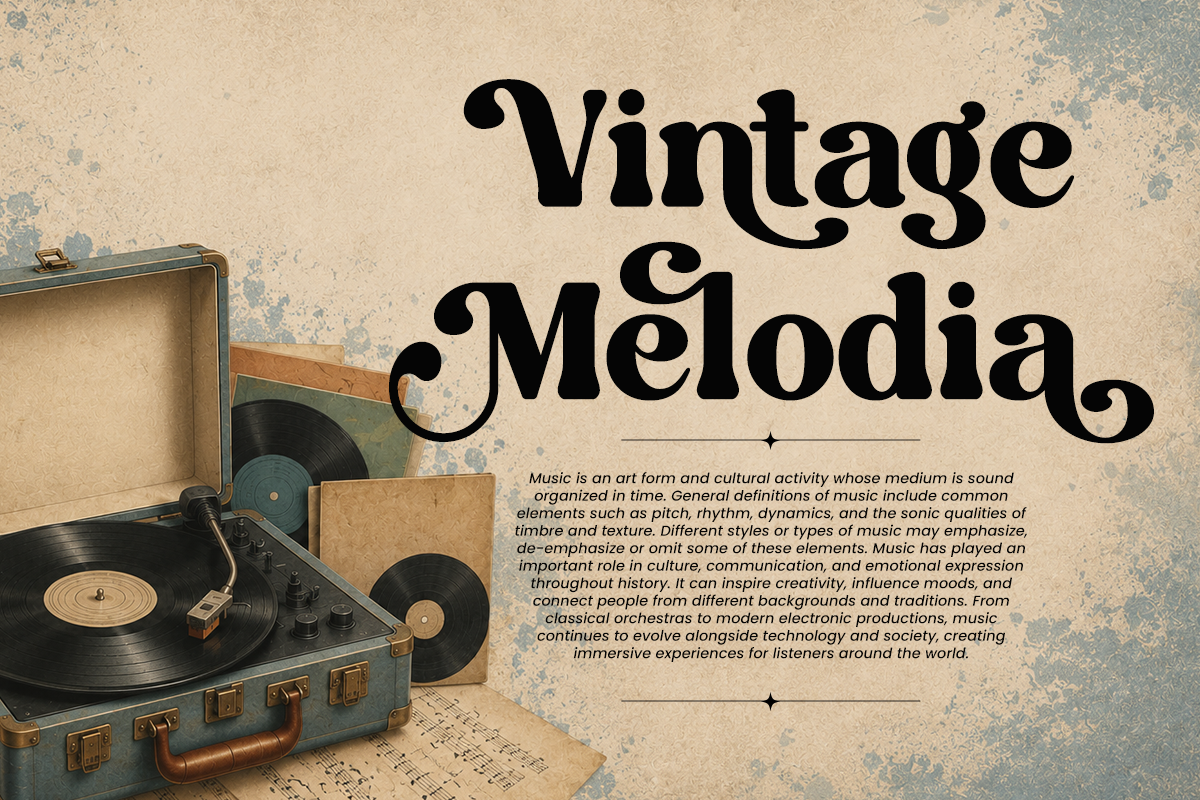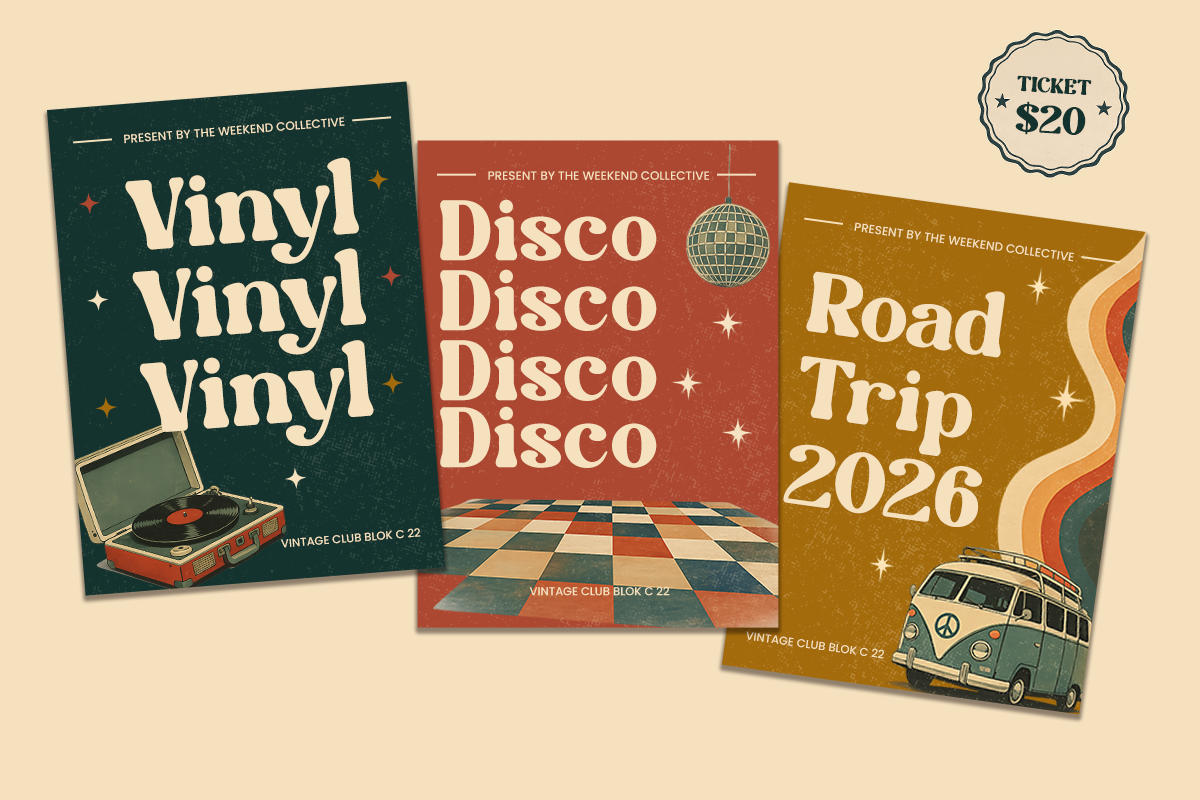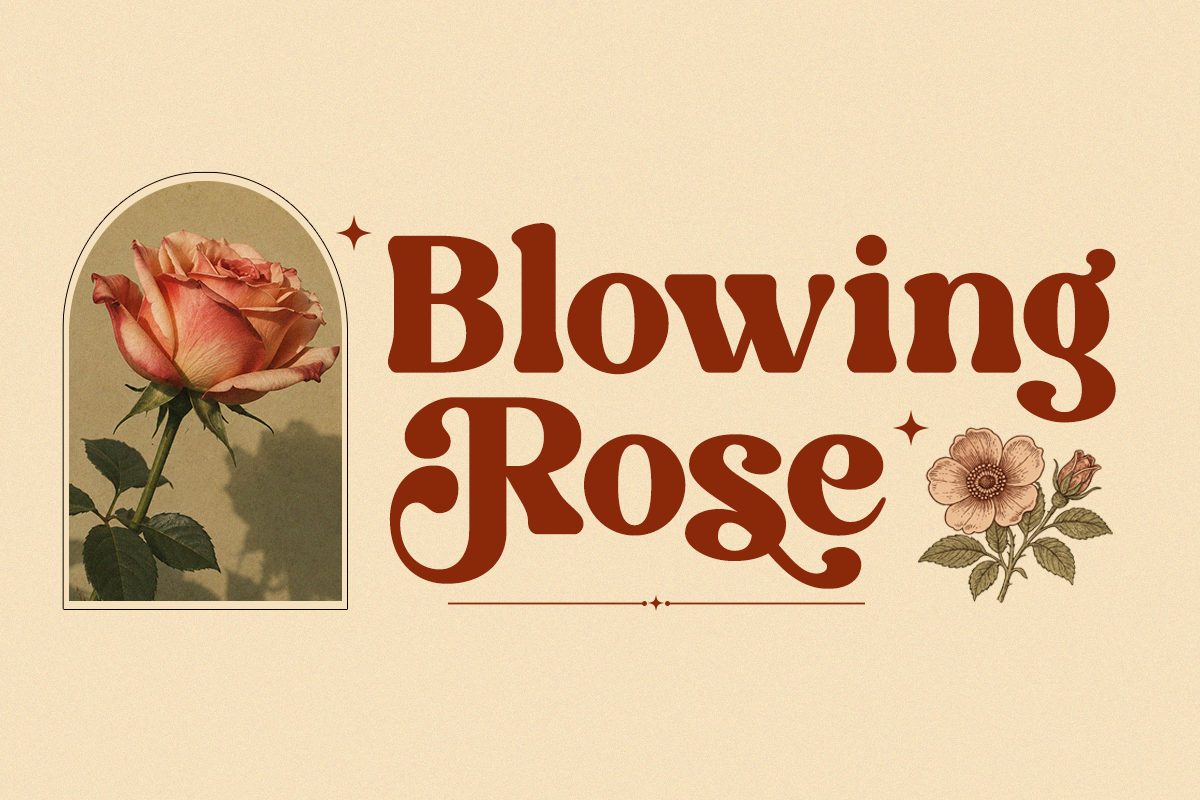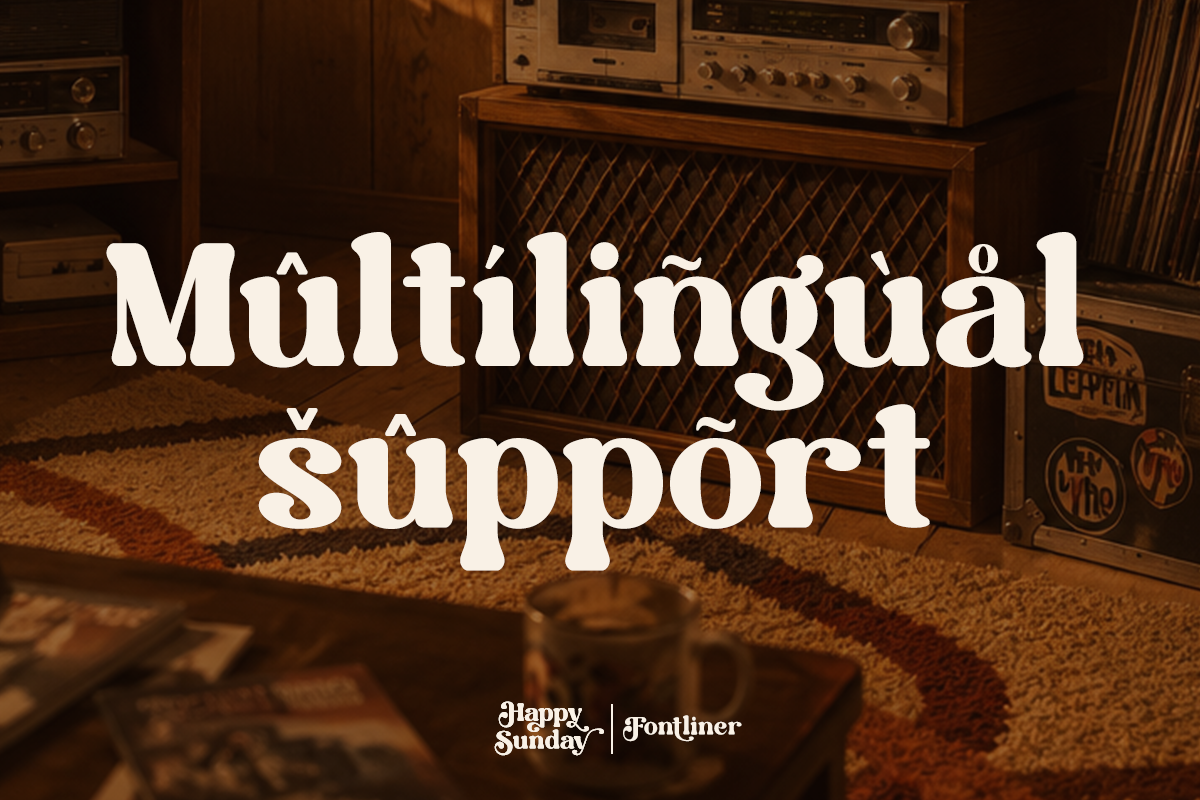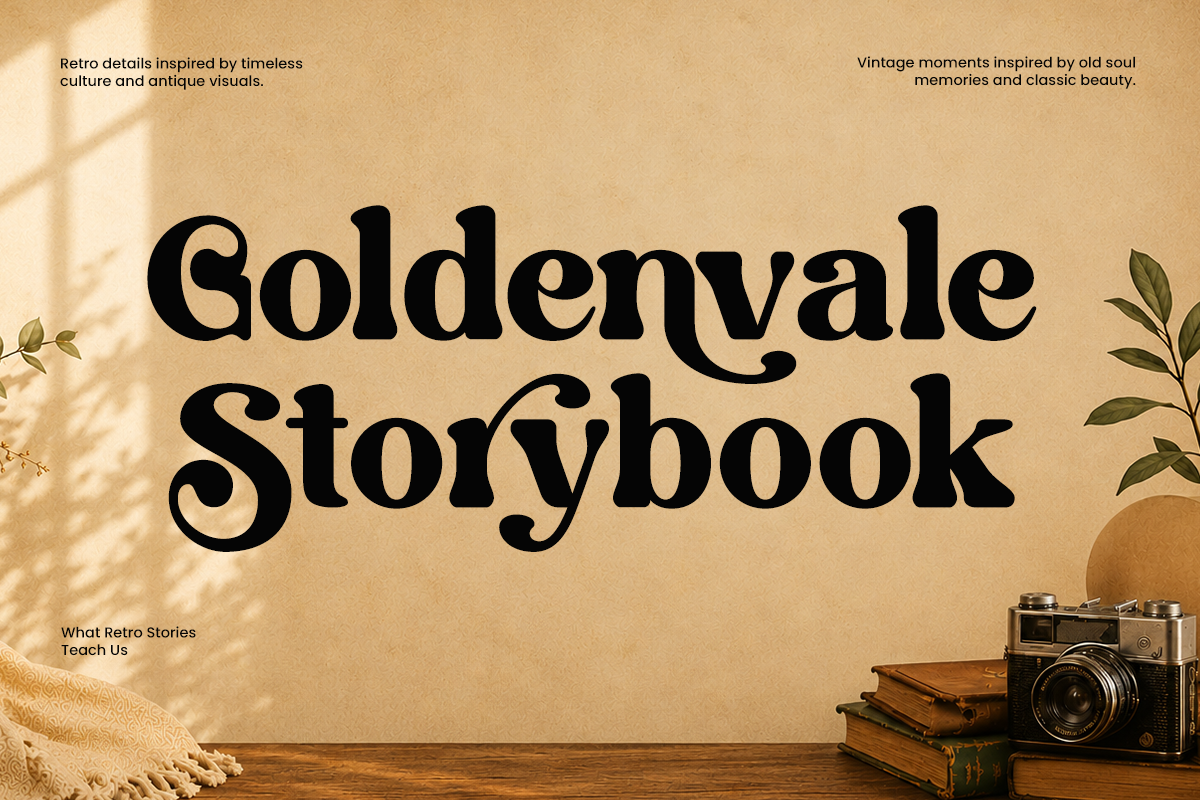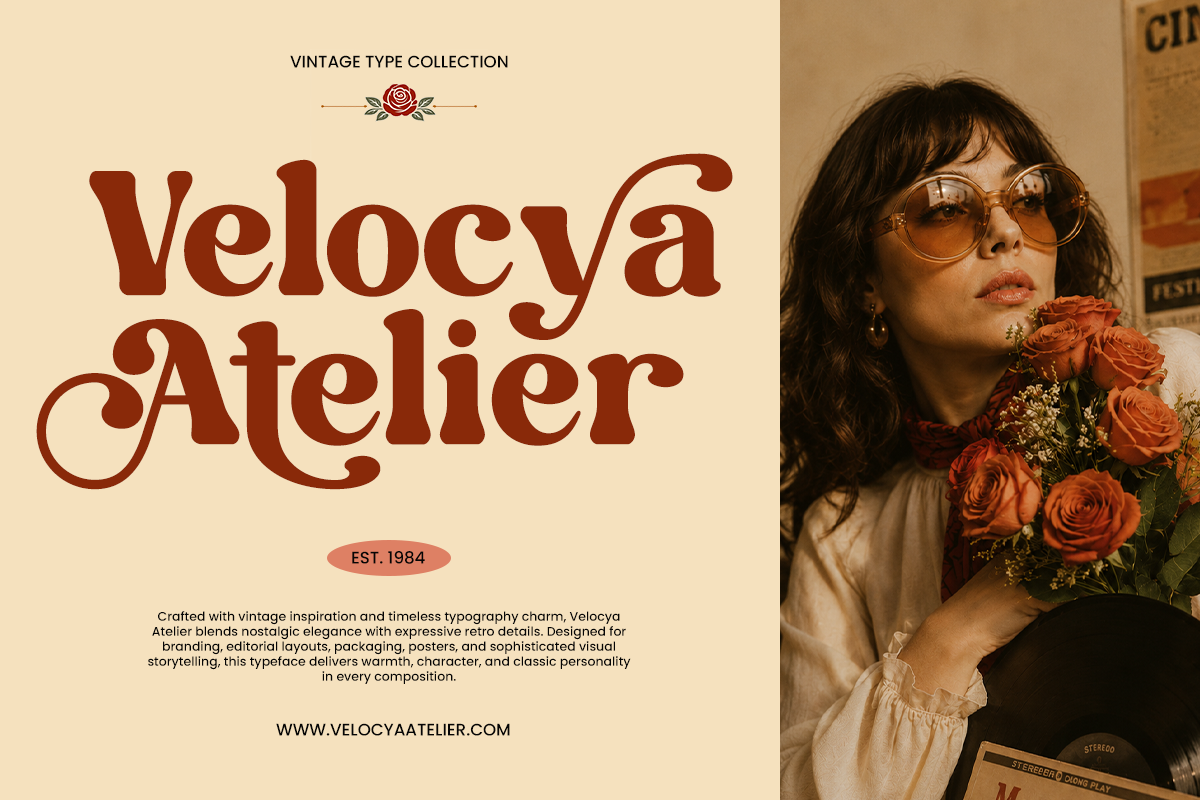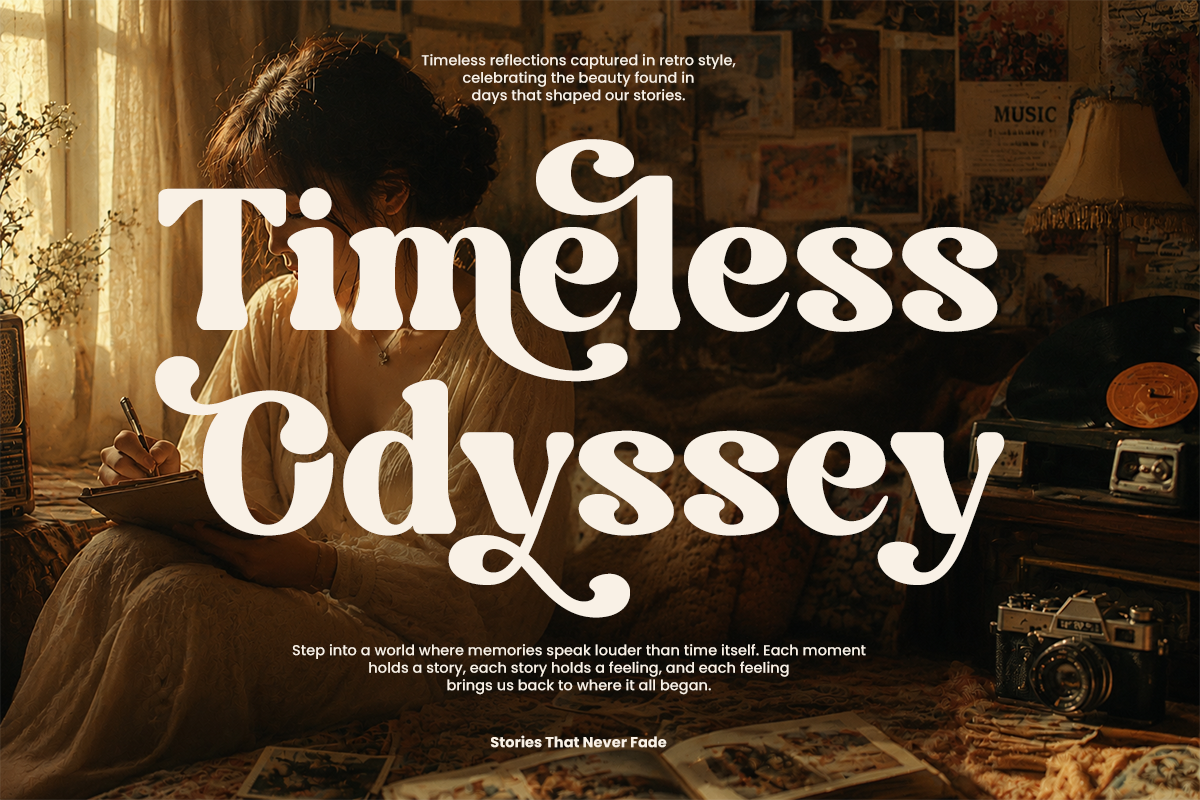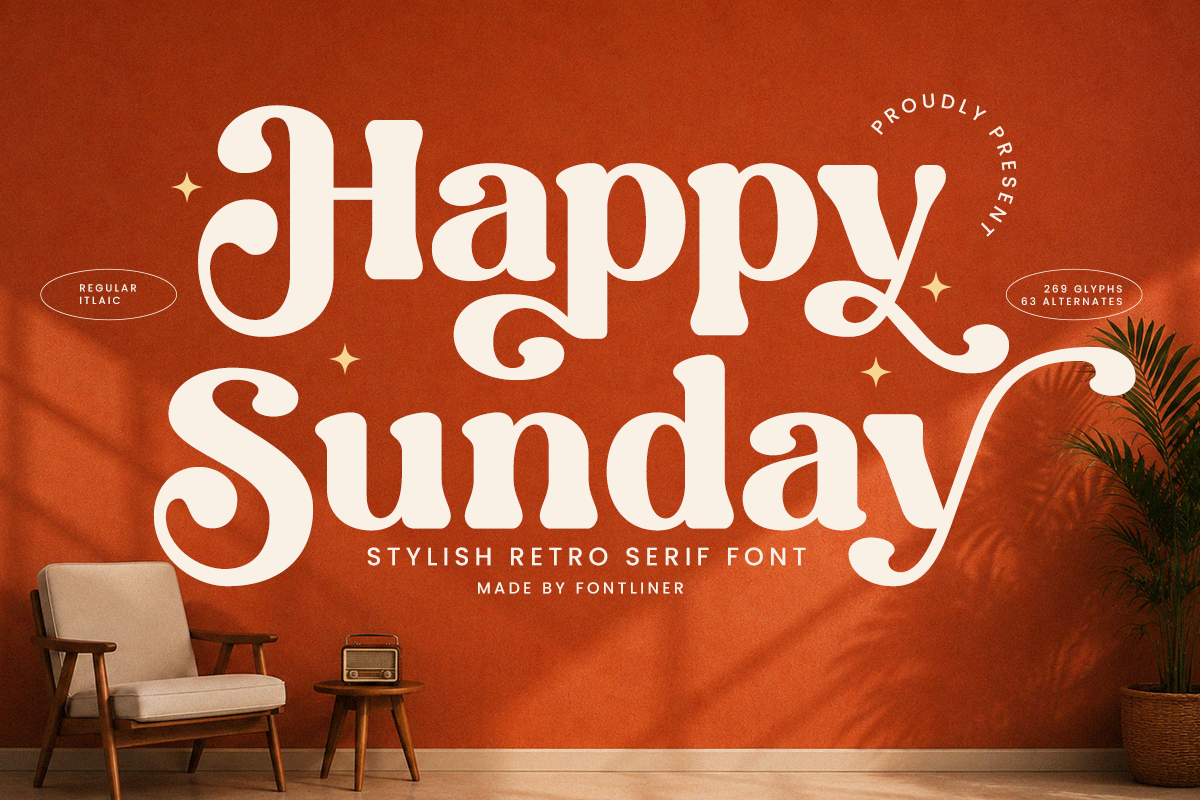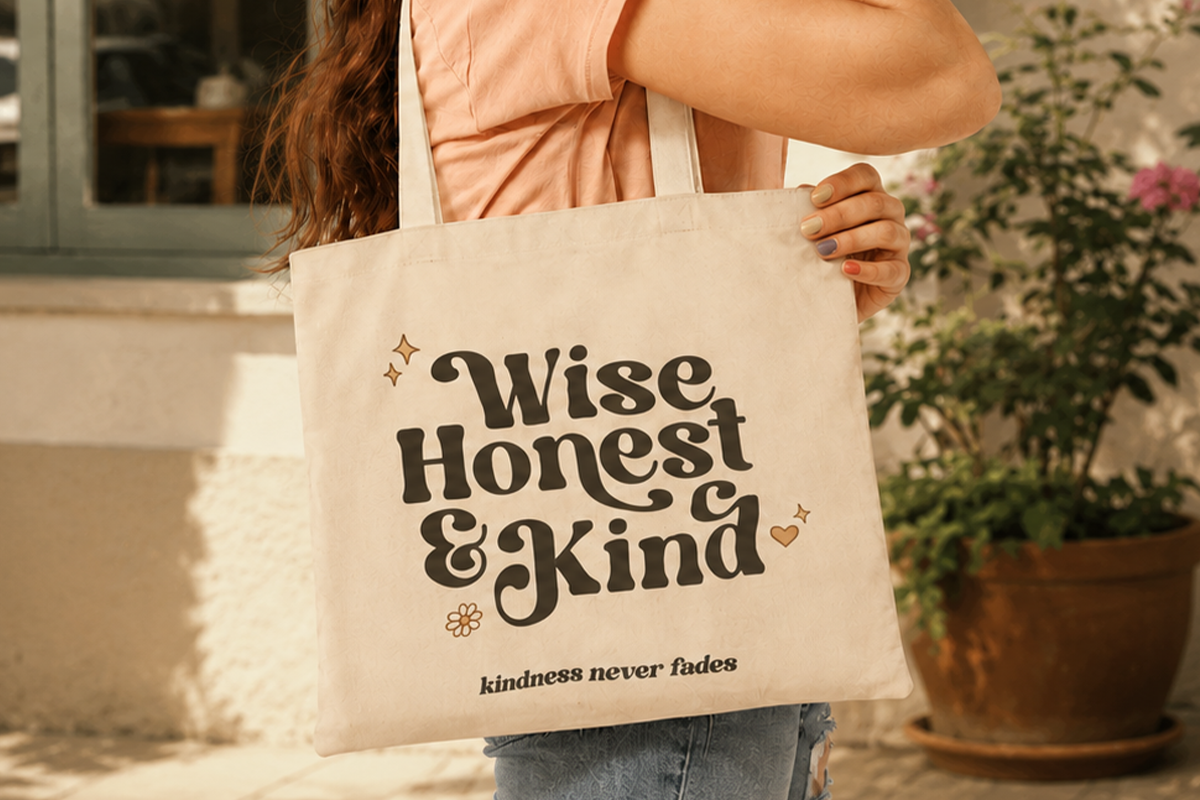
Retro Serif Font - Happy Sunday
Bring warmth, nostalgia, and timeless elegance into your designs with Happy Sunday, a stylish retro serif display font crafted to make every headline unforgettable. Inspired by vintage editorial typography, classic signage, and nostalgic branding aesthetics, this typeface combines bold curves, playful swashes, and elegant serif details that instantly create a premium retro feel.
With 269 glyphs and 63 alternates, Happy Sunday gives designers creative flexibility to craft unique logotypes, branding identities, packaging, posters, magazine headlines, café branding, beauty products, fashion campaigns, social media graphics, and retro-inspired merchandise. Its charming personality makes it ideal for projects that need a bold yet sophisticated vintage touch.
Happy Sunday Perfect for branding designers, creatives, and marketers looking for a font that balances retro charm, modern versatility, and strong visual impact, Happy Sunday transforms ordinary typography into statement design.
Regular and Italic Style